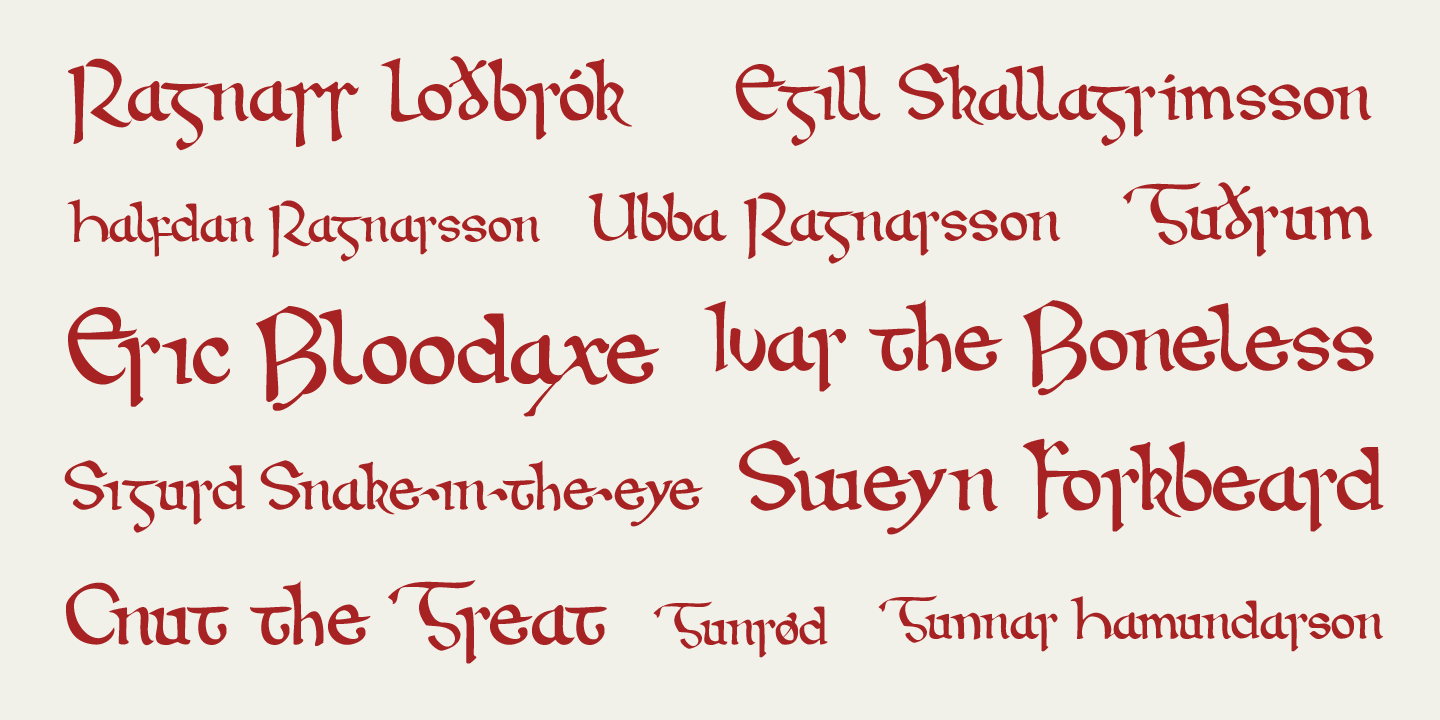
Wintanceastre Font Free Download is a distinctive, medieval-inspired typeface that brings an old-world charm and historical flair to your design projects. Perfect for fantasy book covers, role-playing game titles, event posters, logos, and themed branding, this font evokes the atmosphere of ancient manuscripts and classic storytelling. Its ornate letterforms make Wintanceastre Font an ideal choice for designs that need a unique, vintage aesthetic.
With Wintanceastre Font Free Download, you’ll get a full set of uppercase letters, numbers, and essential punctuation, allowing you to craft authentic and eye-catching designs. Whether you’re working on invitations for a medieval fair, signage for a themed event, or decorative packaging, this font provides a strong visual identity while maintaining legibility.
Add historical elegance and a unique touch to your projects with Wintanceastre Font Free Download. This timeless typeface will help your creative work stand out with authenticity, making it a valuable addition to your font collection.